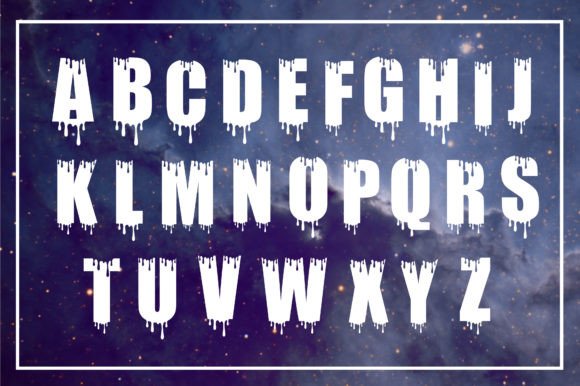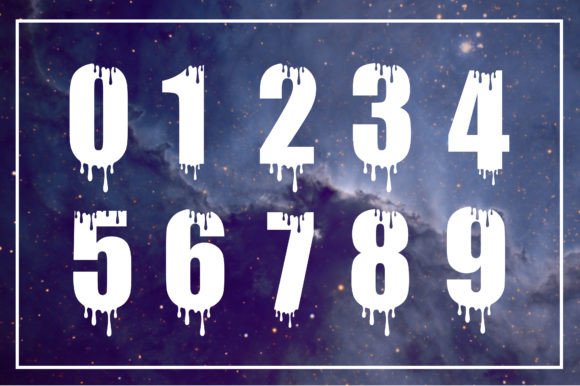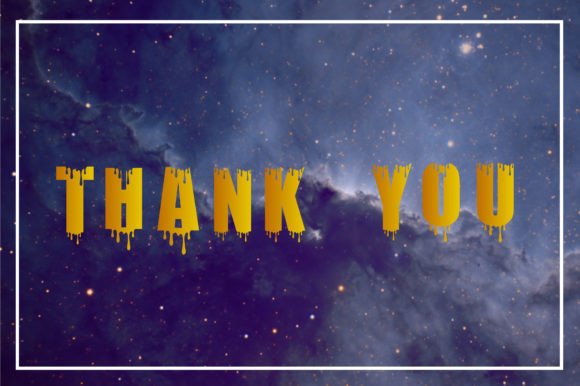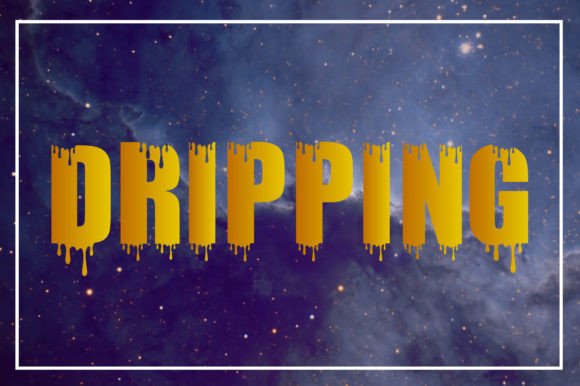
Dripping Font: Elevate Your Designs with a Unique and Authentic Touch
Are you tired of using the same old fonts for your designs? Look no further! Introducing the Dripping Font, a thick lettered yet unique and original decorative font that’s perfect for adding a personal and realistic feel to your creations. In this article, we’ll dive into the features and benefits of the Dripping Font, and explore how it can elevate your designs to the next level.
What is Dripping Font?
Dripping Font is a decorative font that’s designed to add a touch of authenticity to your designs. Its thick letters and unique style make it perfect for creating eye-catching quotes, posters, and teaching materials. Whether you’re a designer, crafter, or educator, this font is sure to become a staple in your collection.
Key Features of Dripping Font
- Unique and Original Design: The Dripping Font boasts a one-of-a-kind design that’s sure to grab attention. Its thick letters and authentic look make it perfect for creating designs that stand out.
- Versatile: The Dripping Font can be used for a variety of projects, from quotes and posters to teaching materials and crafts.
Benefits of Using Dripping Font
- Adds a Personal Touch: The Dripping Font’s authentic look adds a personal and realistic feel to your designs, making them more relatable and engaging.
- Stand Out from the Crowd: With its unique design, the Dripping Font is sure to make your designs stand out from the crowd. Whether you’re creating social media graphics or print materials, this font is sure to grab attention.
Tips for Using Dripping Font
Here are a few tips for getting the most out of the Dripping Font:
- Experiment with Different Sizes: The Dripping Font looks great in a variety of sizes, from small and subtle to large and bold. Experiment with different sizes to find the one that works best for your design.
- Pair it with Other Fonts: The Dripping Font pairs well with a variety of other fonts. Try pairing it with a clean and simple font for a striking contrast.
- Use it for Headlines and Titles: The Dripping Font is perfect for headlines and titles, where its unique design can really make an impact.
The Dripping Font is a unique and original decorative font that’s perfect for designers, crafters, and educators. Its authentic look and PUA encoding make it easy to use and customize, and its versatility means you can use it for a wide range of projects. Whether you’re looking to add a personal touch to your designs or create eye-catching headlines and titles, the Dripping Font is a great choice.